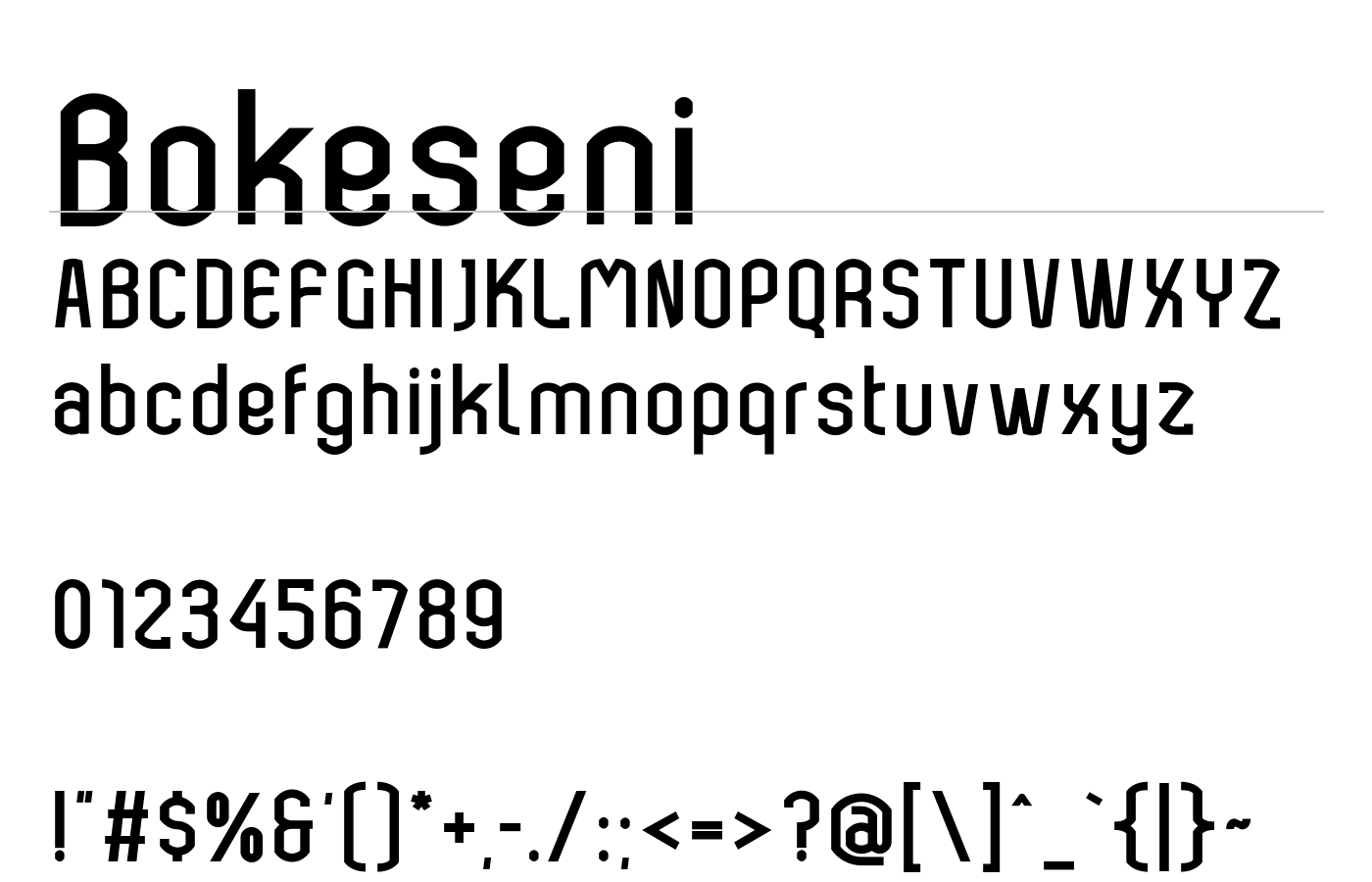
Bokeseni is a sleek, narrow sans serif font with a modern, geometric feel and a distinctive slightly condensed shape. Its clean lines, uniform stroke weight, and tall x-height make it highly legible while adding a unique, tech-inspired personality perfect for contemporary branding, headlines, and minimalist designs. This font works well where a sharp, stylish look is needed without sacrificing readability.
Bokeseni Font
About Bokeseni Font
| Font family | Bokeseni Font |
| Designer | Audry Kitoko Makelele |